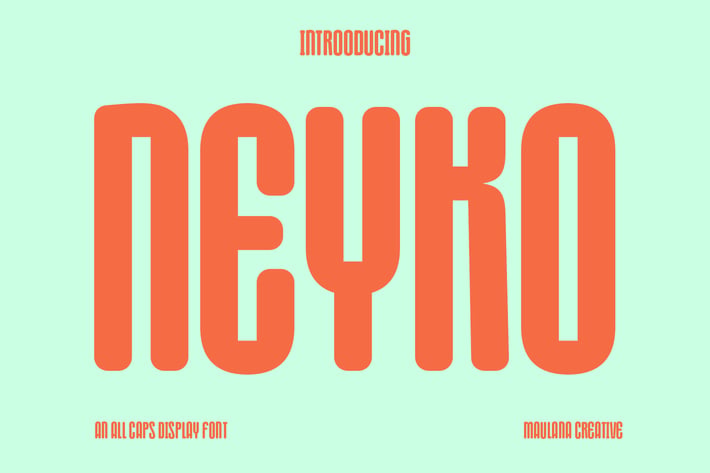
Neyko Sans Serif Display Font
Neyko is an all caps sans serif display font. With medium round consist stroke, fun character with a bit of ligatures, To give you an extra creative work. Neyko font support multilingual more than 100+ language. This font is good for logo design, Social media, Movie Titles, Books Titles, a short text even a long text letter and good for your secondary text font with script or handwritten. Make a stunning work with Neyko font.